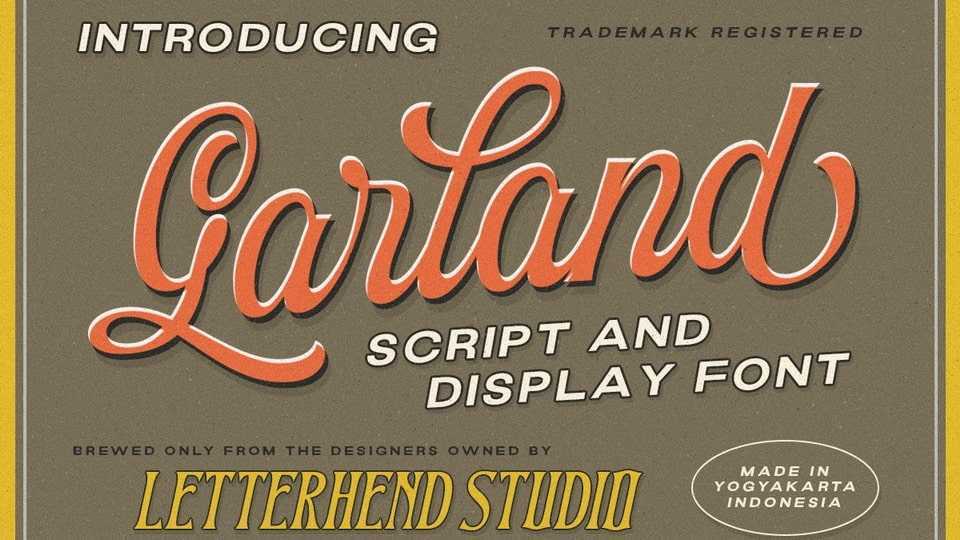
Download The Garland font, a vintage typeface combining a classic display font and an elegant monoline script. You can play around to fit the form using typefaces.